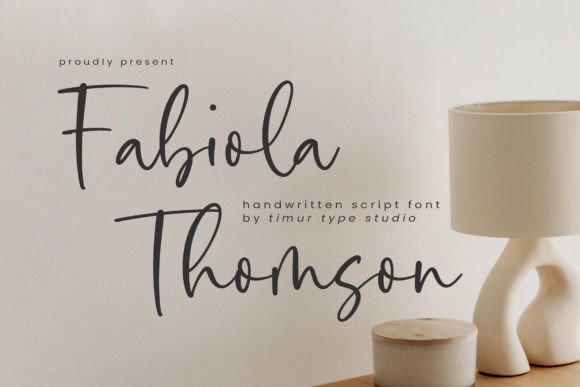
Fabiola Thomson Font: Elevate Your Designs with Elegance and Charm
In the world of typography, few fonts manage to capture the essence of elegance and charm as effectively as the Fabiola Thomson font. This dazzling script font is designed to exude sophistication and luxury, making it an ideal choice for a variety of design projects. From invitations and branding to headlines and more, Fabiola Thomson brings a touch of refinement that can elevate any creative work.
What is Fabiola Thomson Font?
Fabiola Thomson is a script font that stands out for its fluid strokes and intricate details. Its design is characterized by graceful lines and a sense of movement, which gives it a dynamic and engaging appearance. The font’s elegant nature makes it perfect for projects where a high level of sophistication is desired.
Key Features of Fabiola Thomson Font
- Fluid Strokes: The font features smooth, flowing strokes that contribute to its elegant appearance.
- Intricate Details: The intricate details in the font add depth and sophistication, making it suitable for high-end designs.
- Elegant and Charmful: The overall design of Fabiola Thomson exudes elegance and charm, making it perfect for luxury brands and creative projects.
- Versatile: This font can be used for a variety of design projects, including invitations, branding, headlines, and more.
Ideas for Using Fabiola Thomson Font
Fabiola Thomson’s versatility makes it suitable for a wide range of design projects. Here are some ideas on how to use this beautiful font:
- Invitations: Use Fabiola Thomson for wedding invitations, birthday parties, and other special events to add a touch of elegance.
- Branding: Incorporate this font into your brand’s identity to convey luxury and sophistication.
- Headlines: Use Fabiola Thomson for headlines in magazines, websites, and advertisements to grab attention and add style.
- Packaging: Add a touch of elegance to product packaging with this beautiful script font.
- Social Media Graphics: Use Fabiola Thomson for social media graphics, such as quotes, promotions, and announcements, to stand out and add a touch of sophistication.
Tips for Using Fabiola Thomson Font Effectively
To get the most out of Fabiola Thomson, consider the following tips:
- Pair with Simple Fonts: Pair Fabiola Thomson with simpler fonts for body text to create contrast and make your design more readable.
- Adjust Size and Color: Experiment with different sizes and colors to find the perfect balance for your design.
- Use for Headlines and Titles: Use Fabiola Thomson for headlines and titles to draw attention and add elegance.
- Consider Line Spacing: Pay attention to line spacing to ensure that your text is readable and visually appealing.
How Fabiola Thomson Compares to Other Script Fonts
The world of script fonts is vast, with many beautiful options available. Here’s how Fabiola Thomson compares to other popular script fonts:
- Unique Elegance: Fabiola Thomson offers a unique blend of elegance and charm that sets it apart from other script fonts.
- Versatility: While some script fonts can be overly ornate or difficult to read, Fabiola Thomson strikes a balance between style and readability.
- Modern Appeal: Fabiola Thomson has a modern appeal that makes it suitable for contemporary designs, while still maintaining a classic feel.
Fabiola Thomson is a stunning script font that can add elegance and charm to any design project. Its fluid strokes, intricate details, and versatile nature make it perfect for a variety of uses, from invitations and branding to headlines and more. By incorporating Fabiola Thomson into your designs, you can elevate your work and create visually stunning pieces that capture attention and convey sophistication.